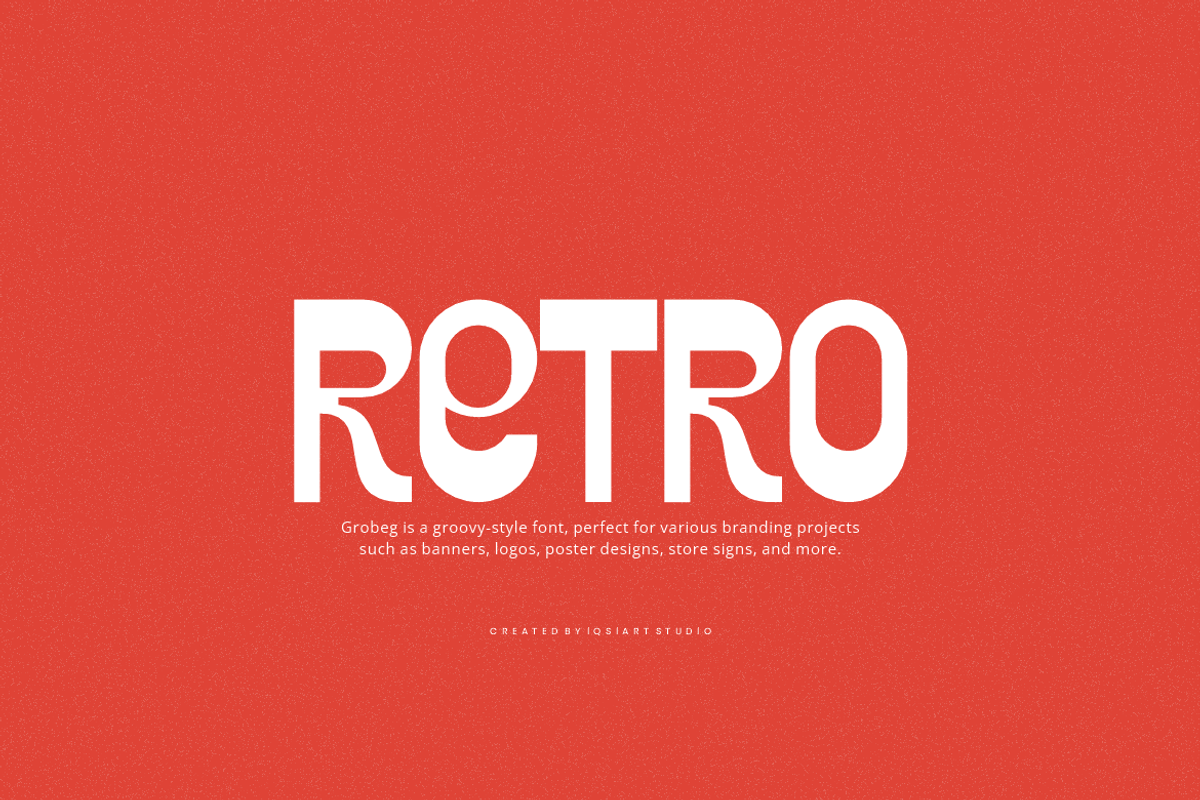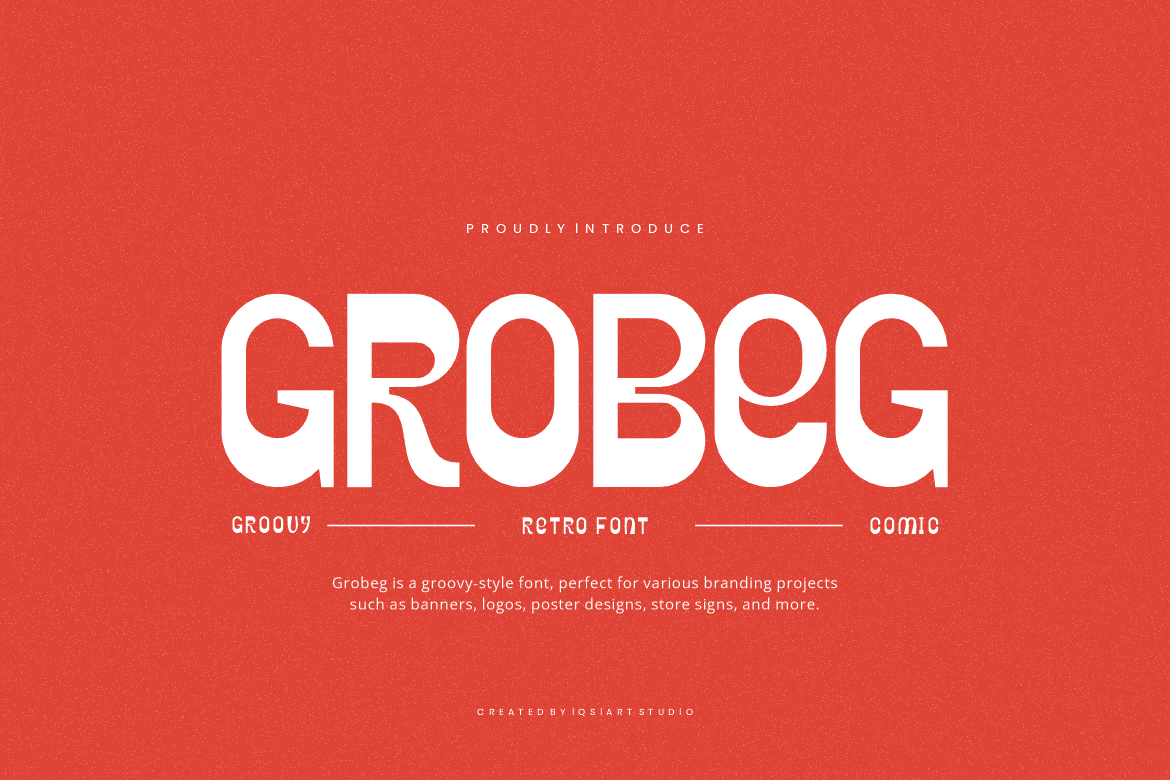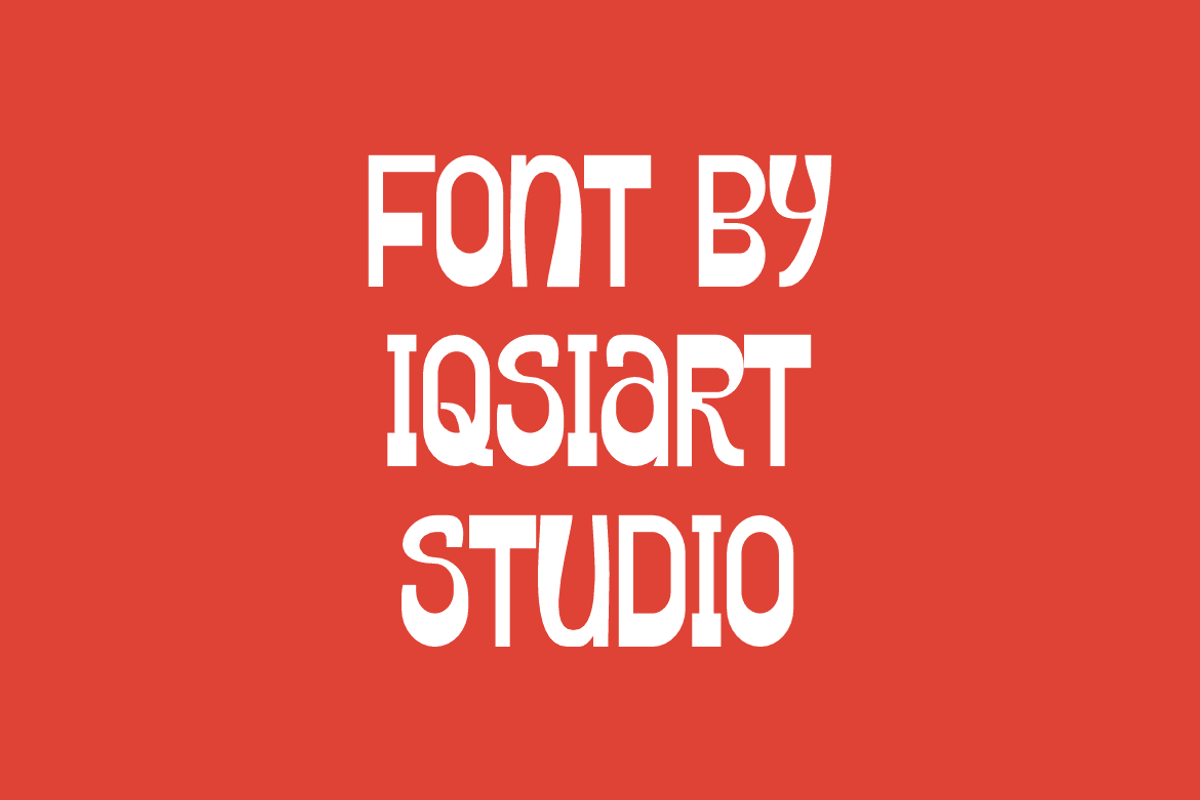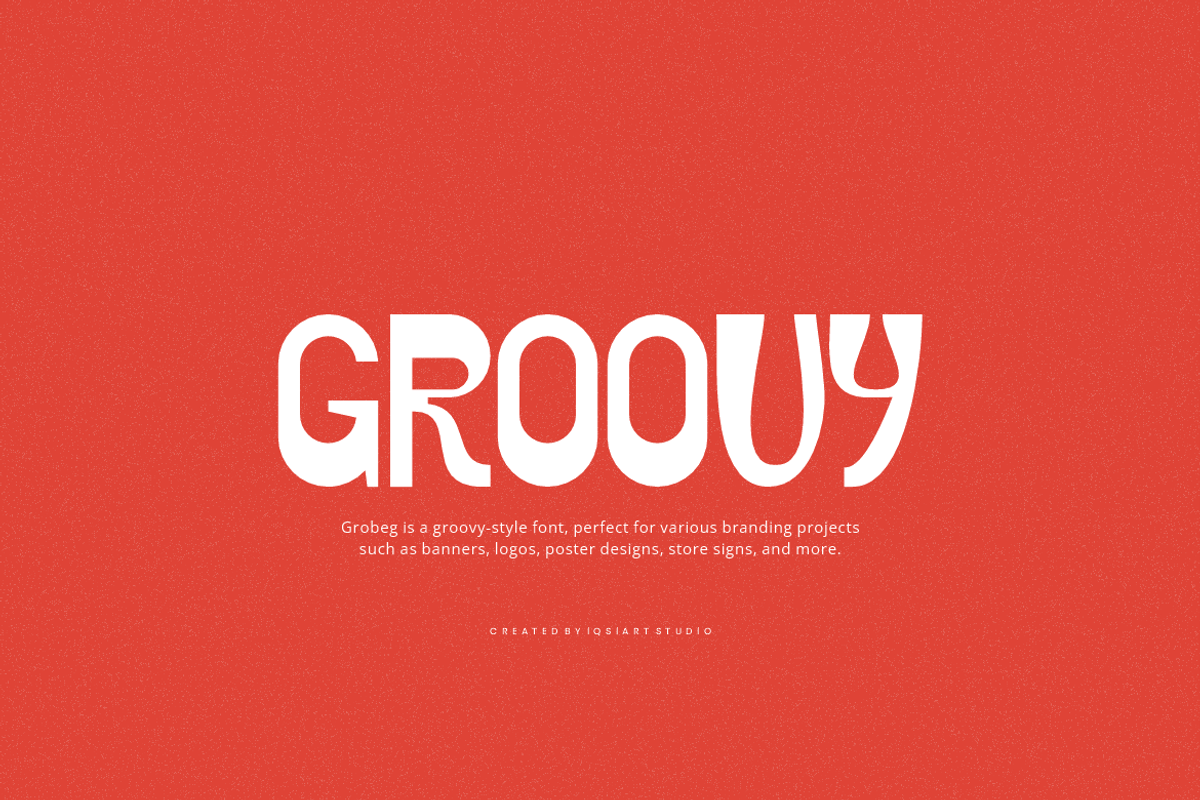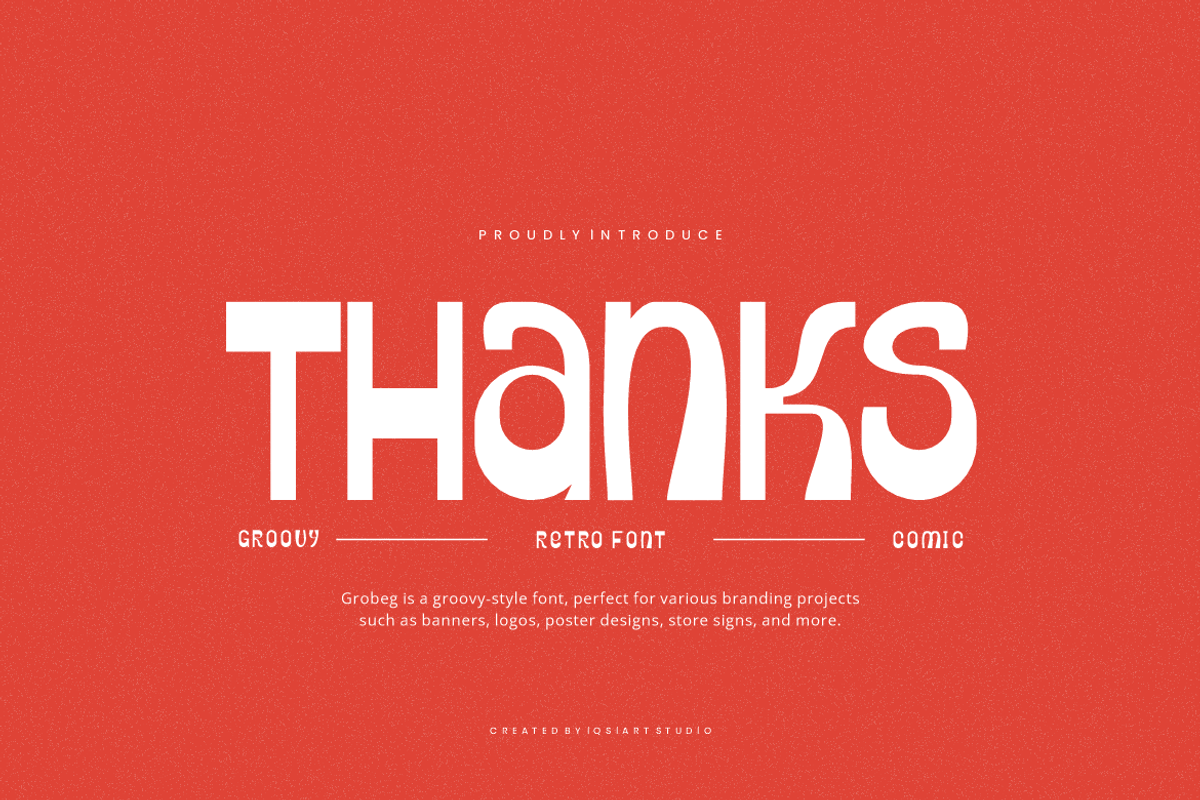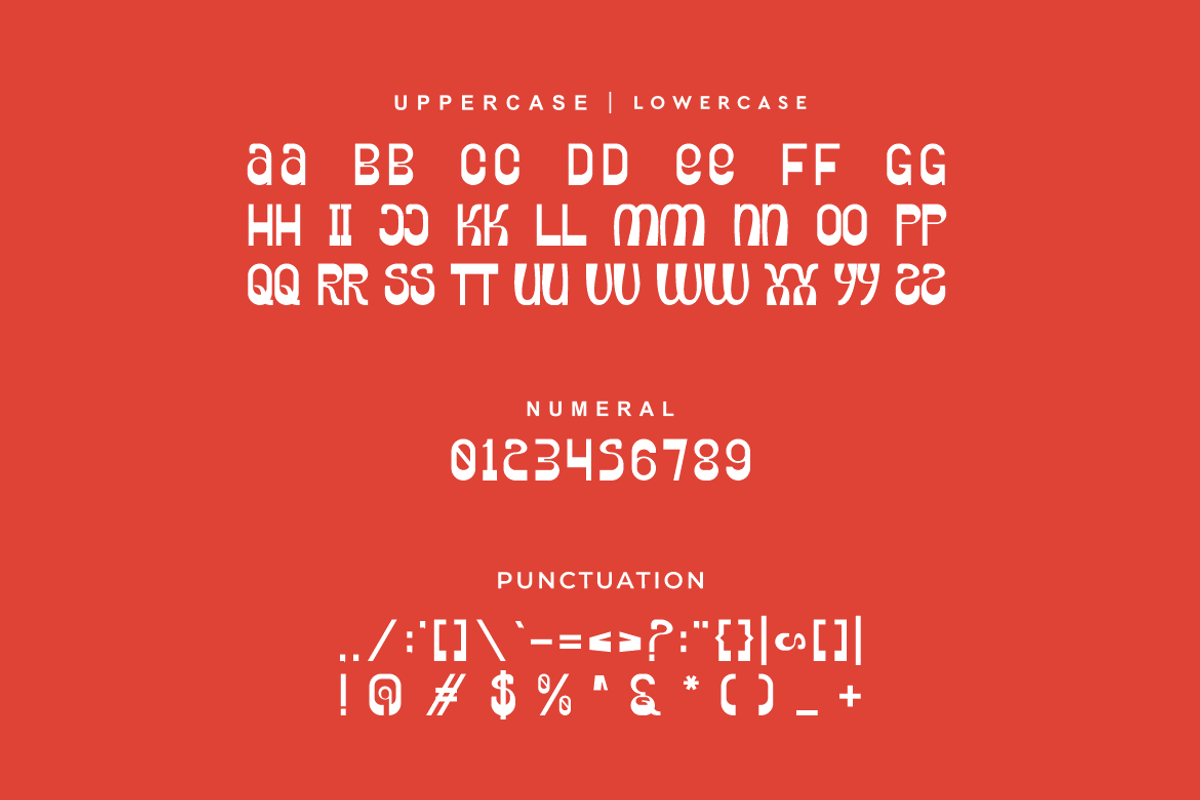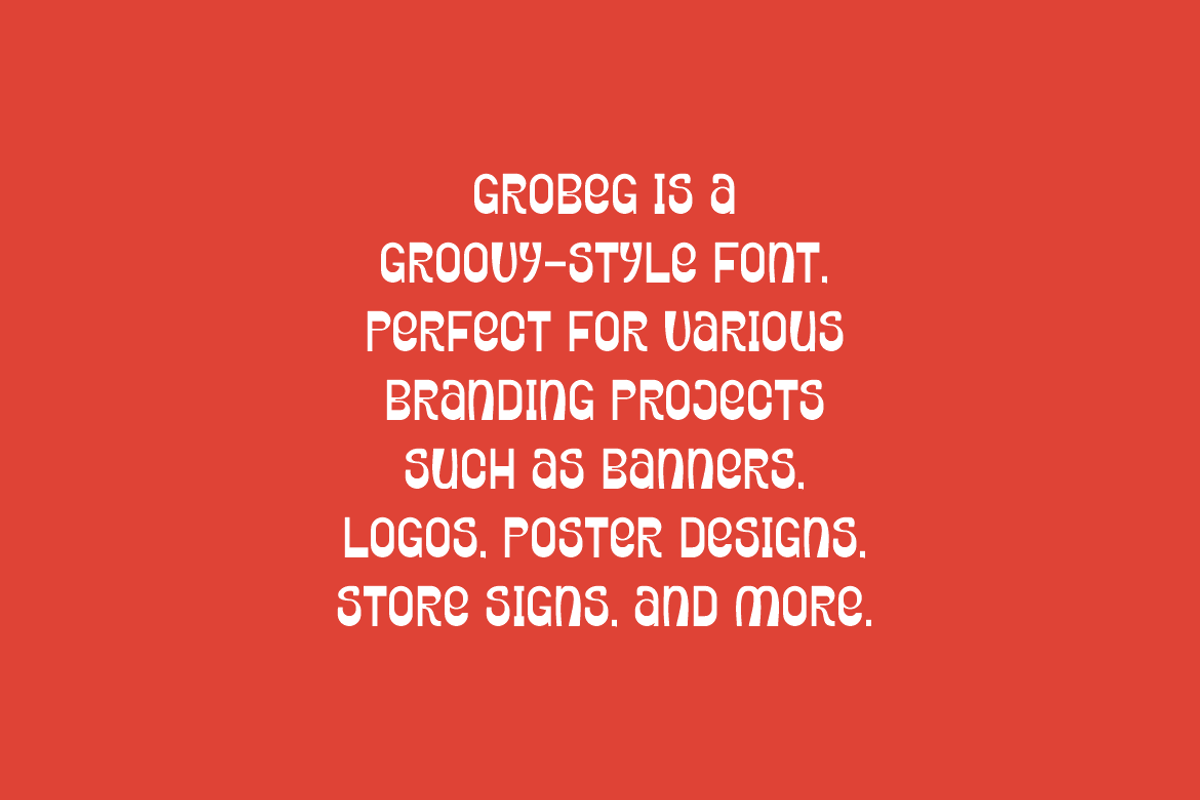
Grobeg - Groovy Font
Grobeg Font is a groovy and authentic display typeface that suits a variety of design needs. We offer a wide range of themes and font styles — visit our profile to explore more and find the perfect style for your project.